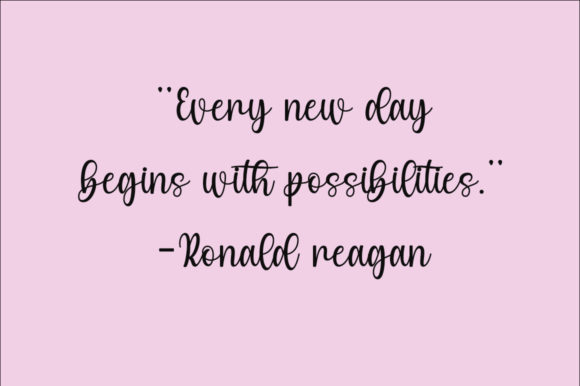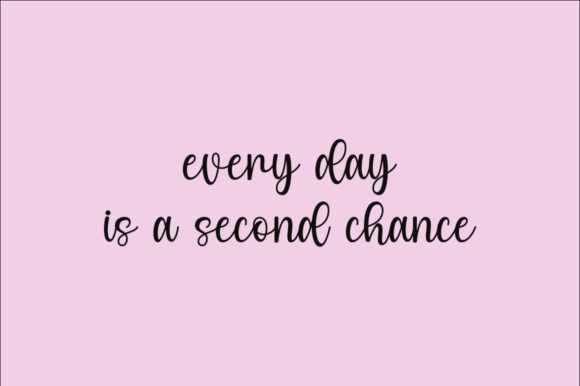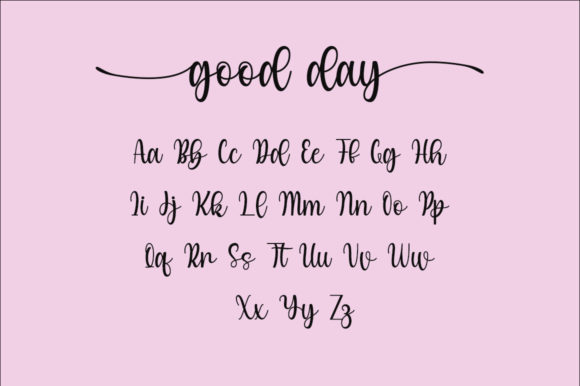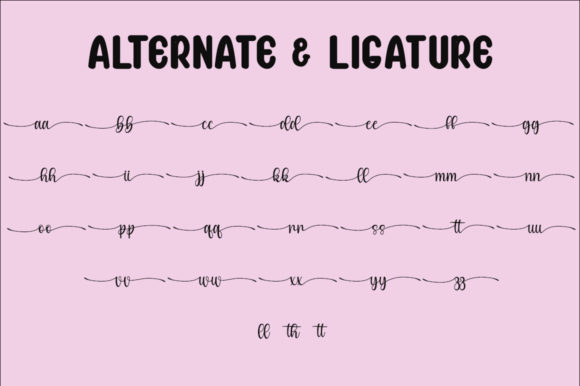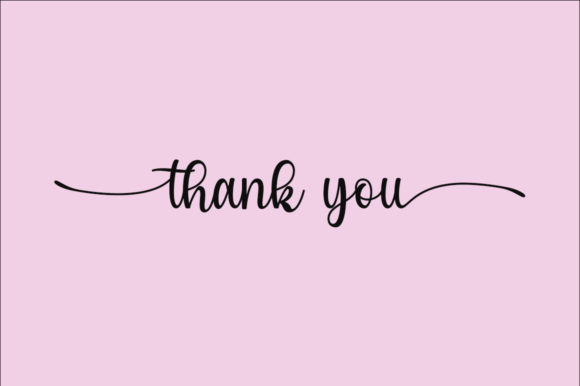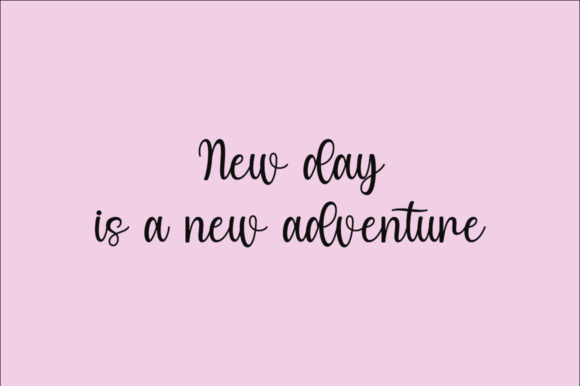
Good Day Font
About Good Day Font
“Good Day” is an enchanting handwritten font that adds a touch of charm to your creative projects. This versatile typeface is well-suited for a wide spectrum of applications, ranging from greeting cards to headlines. “Good Day” is PUA encoded, ensuring easy access to all of its glyphs and swashes, providing you with a seamless experience in customizing your designs.
The enchanting quality of “Good Day” lies in its handwritten style, which brings a warm and personal touch to your projects. Whether you’re creating heartfelt greeting cards or eye-catching headlines, this font’s versatility allows it to adapt gracefully to various design contexts.
The PUA encoding feature enhances the accessibility of “Good Day,” allowing you to explore and integrate a variety of glyphs and swashes effortlessly. This versatility empowers you to personalize your designs and add unique stylistic elements, making “Good Day” a valuable asset for your creative toolkit.
In summary, “Good Day” is more than just a font; it’s an enchanting and versatile typeface that elevates a wide range of creative projects. With its handwritten charm and PUA encoding, this font provides you with the flexibility to infuse warmth and personality into your designs, making every day a “Good Day” for your creative endeavors.